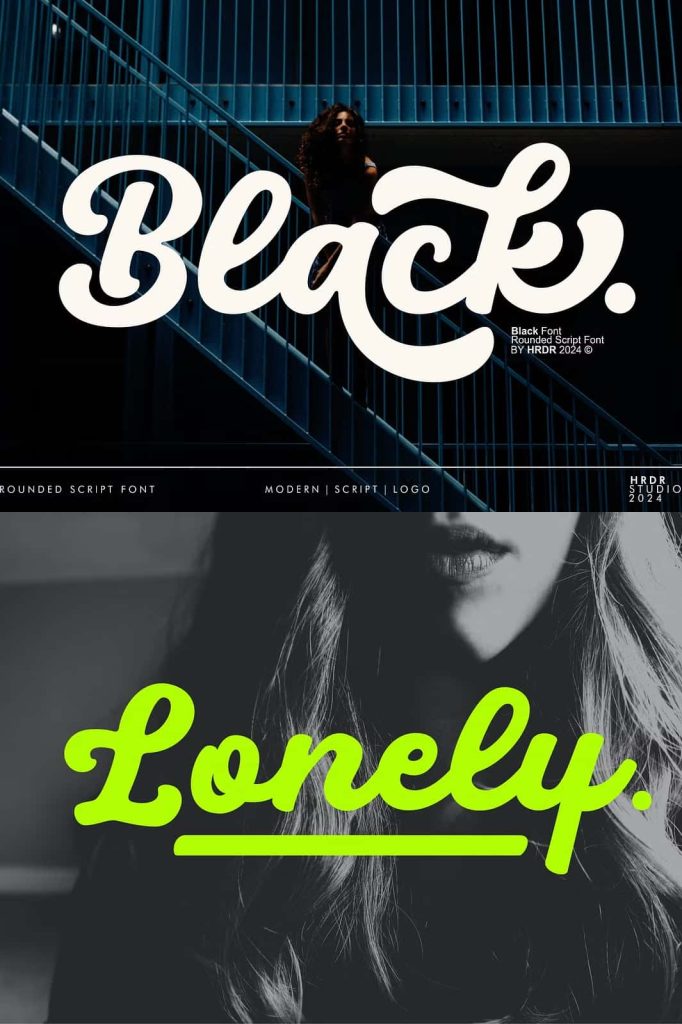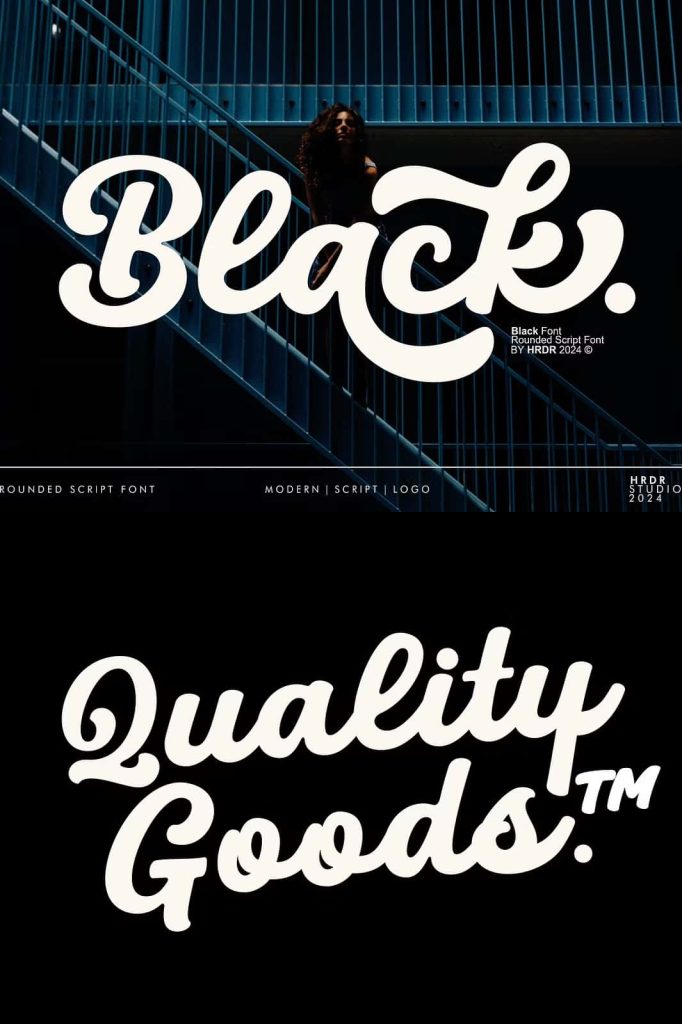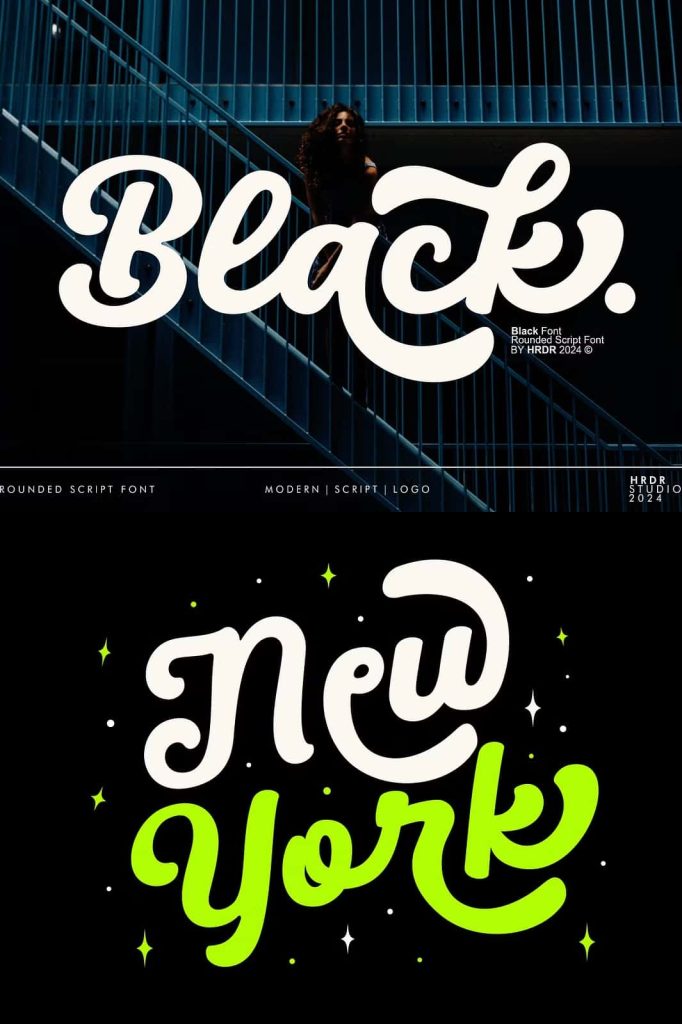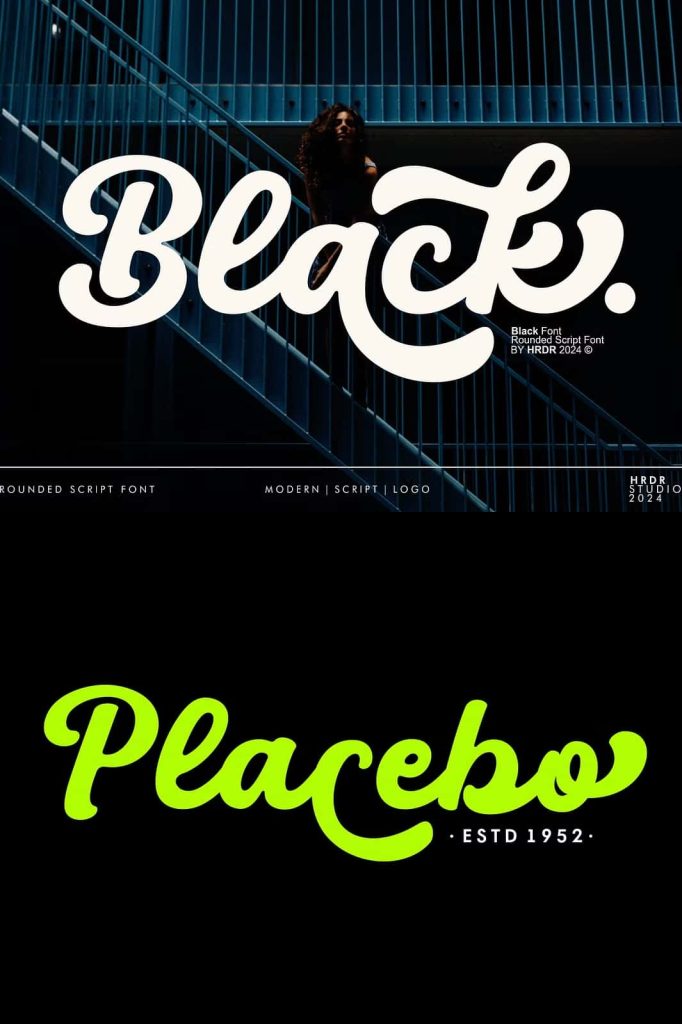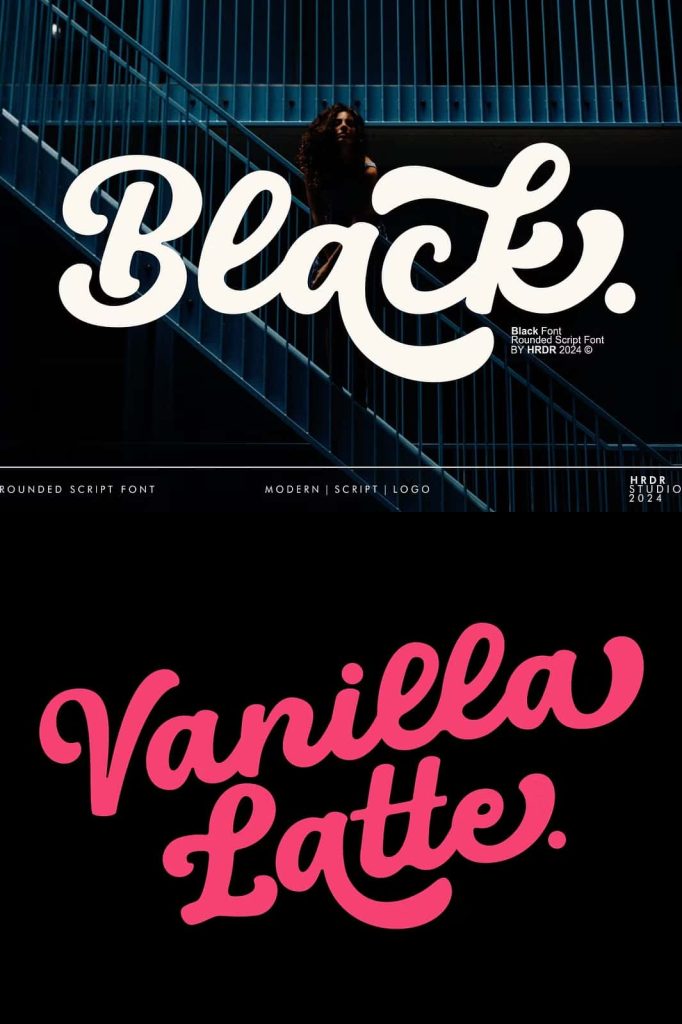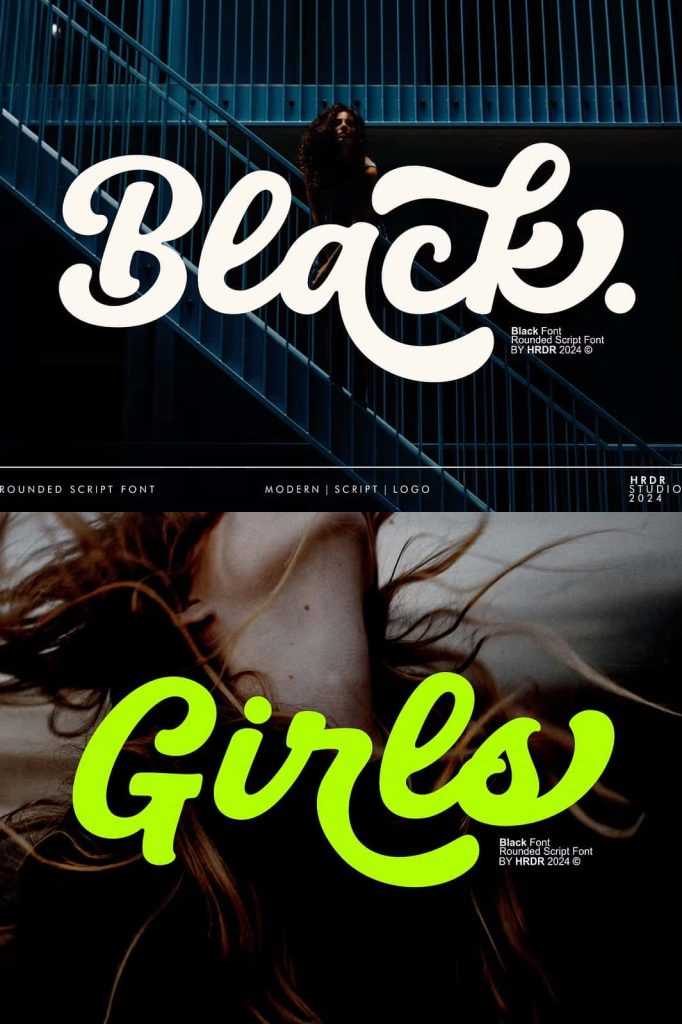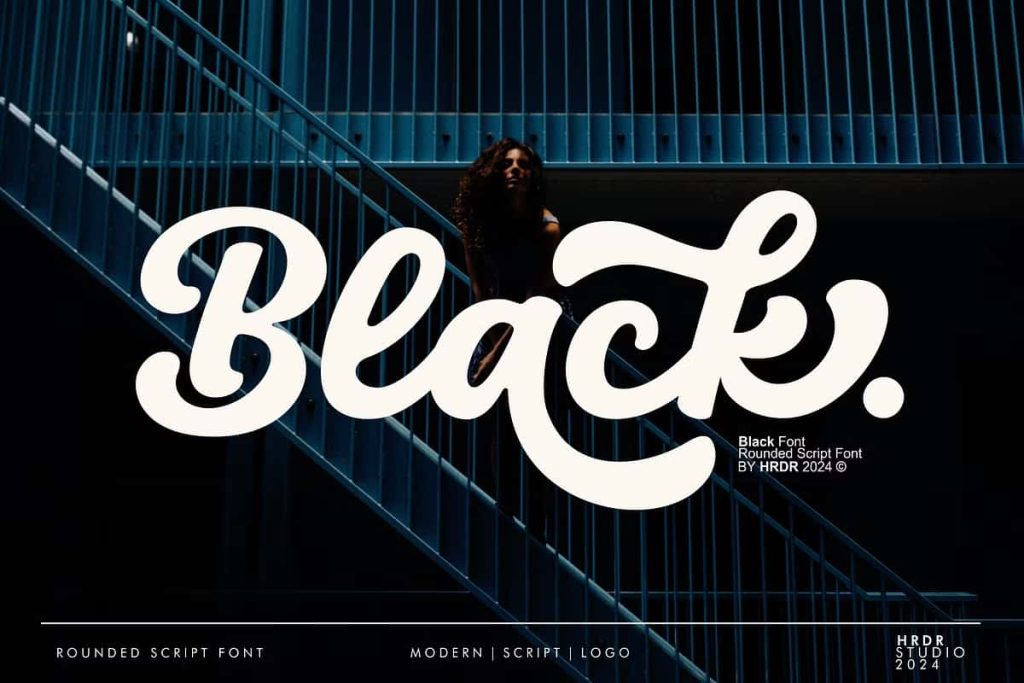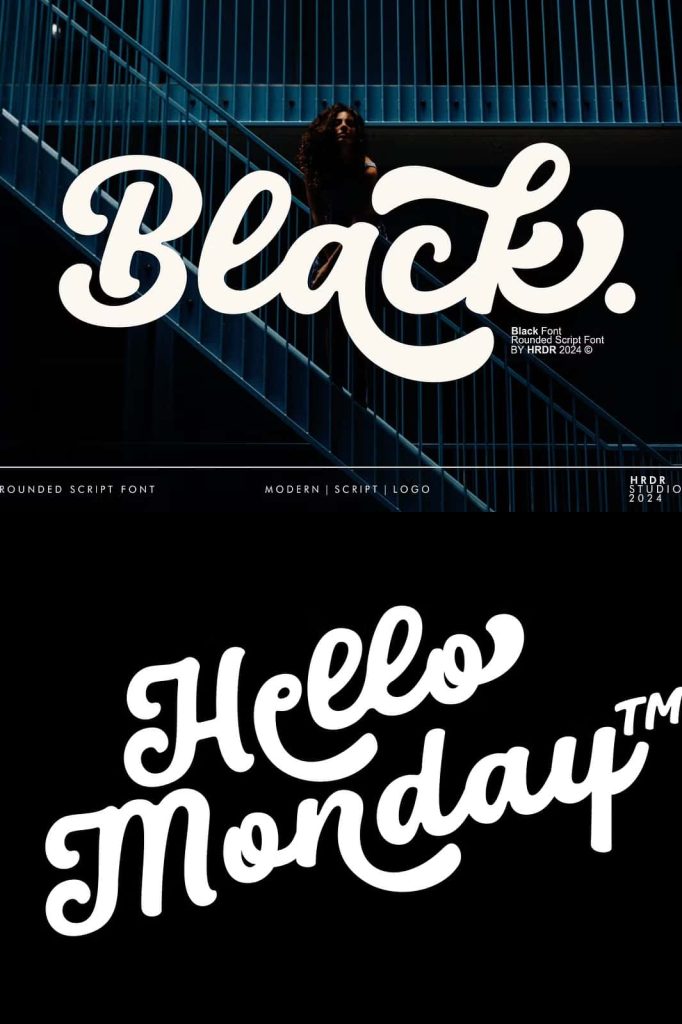
Meets Black Script Font: A Bold and Retro Design Choice
Meets Black is a bold and curvy script font that brings a sense of retro elegance and stylish personality to every design. Its unique character blends modern confidence with a vintage-inspired flow, making it an excellent choice for anyone wanting to make a bold visual statement. This font features smooth curves, thick strokes, and artistic details, helping designers communicate both creativity and sophistication.
Perfect for Eye-Catching Headlines and Bold Branding
Meets Black works especially well for large text applications where style and readability are important. Whether used for bold editorial headlines, promotional banners, packaging designs, or product labels, this font instantly attracts attention. Its expressive curves and dynamic flow allow designs to feel intentional, vibrant, and visually memorable.
Designers can use Meets Black to develop striking branding elements, such as logos and taglines. The combination of thickness and style gives logos a handcrafted appearance, while maintaining clarity and visual balance. Its bold script structure ensures it stands out across a wide range of mediums including digital platforms, print materials, merchandise, and signage.
Ideal Uses Across Multiple Design Projects
The flexibility of Meets Black makes it suitable for various creative projects. Its retro charm brings a nostalgic feel to posters and advertisements, while its refined curves make it suitable for luxury fashion promotions, beauty packaging, handmade product labels, and wedding stationery. Additionally, its playful yet elegant presence supports personal design work such as greeting cards, scrapbooks, social media templates, and digital art branding.
If you are building a project that requires a blend of expression, warmth, and bold typography, Meets Black delivers the right personality. It elevates layouts, enhances compositions, and ensures that messages are seen and remembered.
Why Choose Meets Black Script Font?
Choosing Meets Black means selecting a font that offers more than style. It offers design flexibility, strong legibility, and a visually engaging flow. Every stroke feels intentional, making your content appear professional, creative, and full of personality. The bold structure ensures visibility at large sizes, while the script features bring softness and artistic expression.
Whether you are a designer creating logo collections, a business owner developing branding materials, or a creator designing stylish personal projects, this script font provides powerful creative potential. Meets Black is more than a typeface; it is a visual tool that adds character, boldness, and unforgettable charm to every design it touches.
Enhance Your Designs with Retro Elegance
Meets Black stands out as a timeless script font that balances retro inspiration with contemporary boldness. Its distinctive appearance makes every layout more dynamic, expressive, and visually engaging. Designers who want their work to feel unique, confident, and stylish will appreciate the craftsmanship of this script font. Use it to communicate creativity, elevate brand identity, and transform ordinary text into captivating typography.
If your goal is to design something that feels expressive, bold, and memorable, Meets Black is the perfect font to include in your creative collection. Explore its curves, experiment with its bold style, and allow it to bring timeless elegance to your next design project.